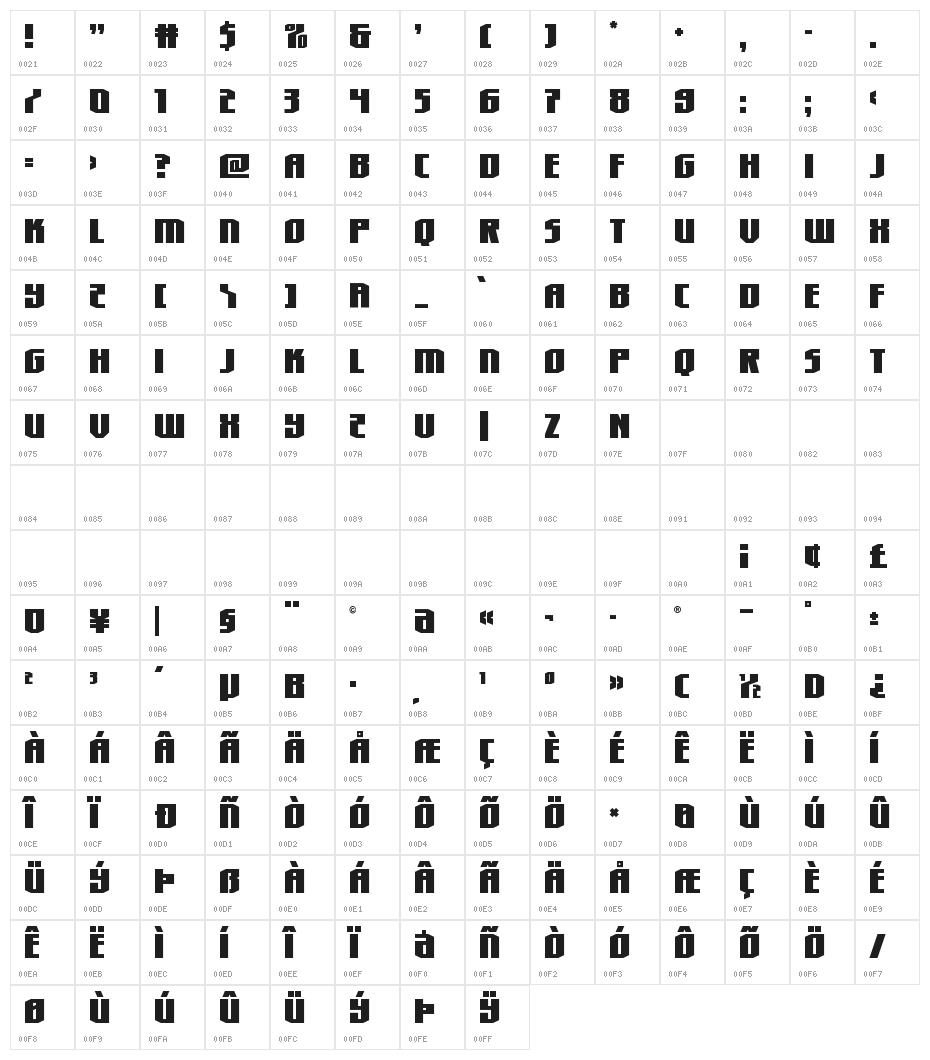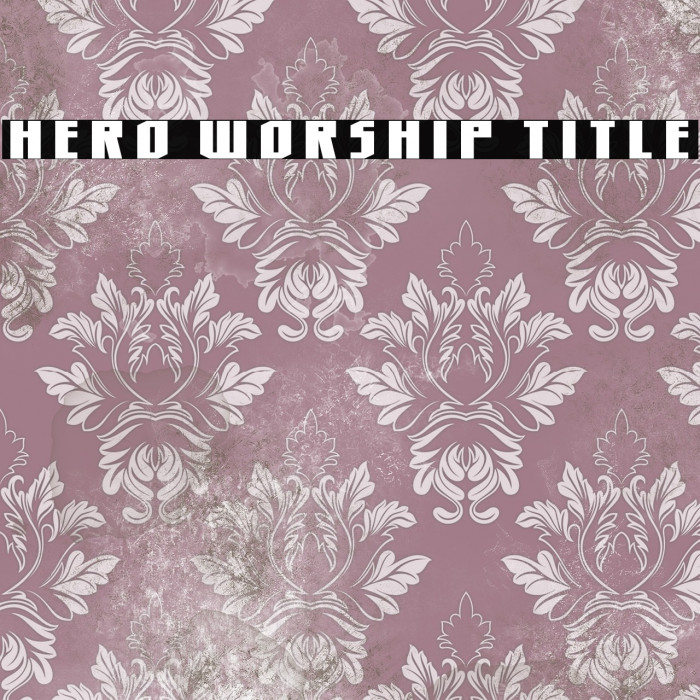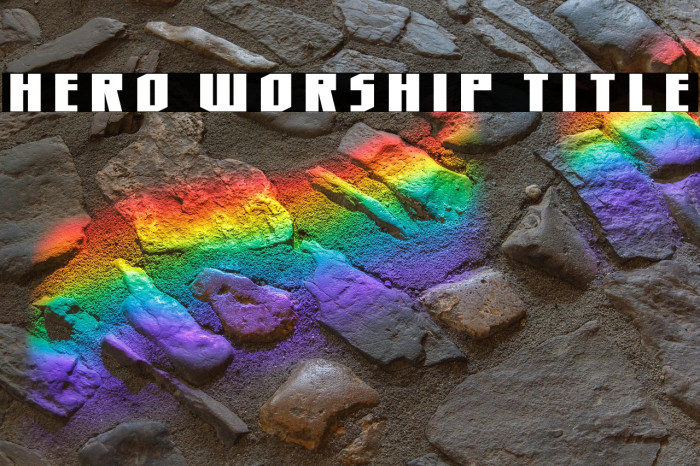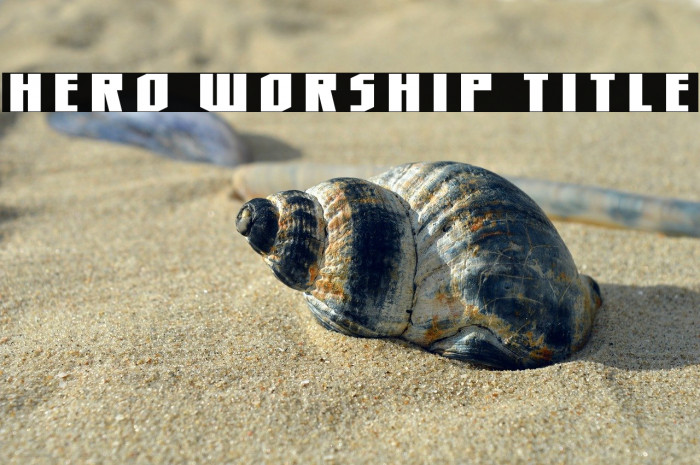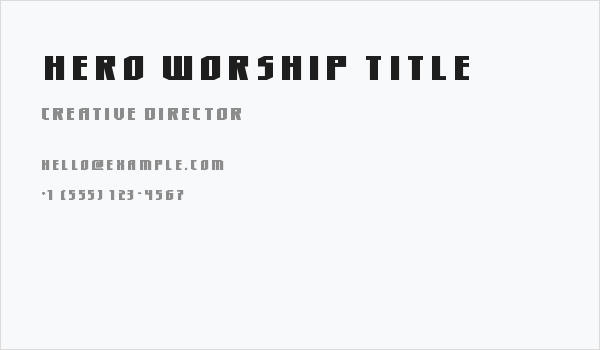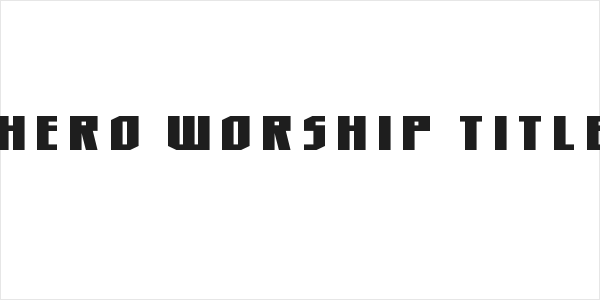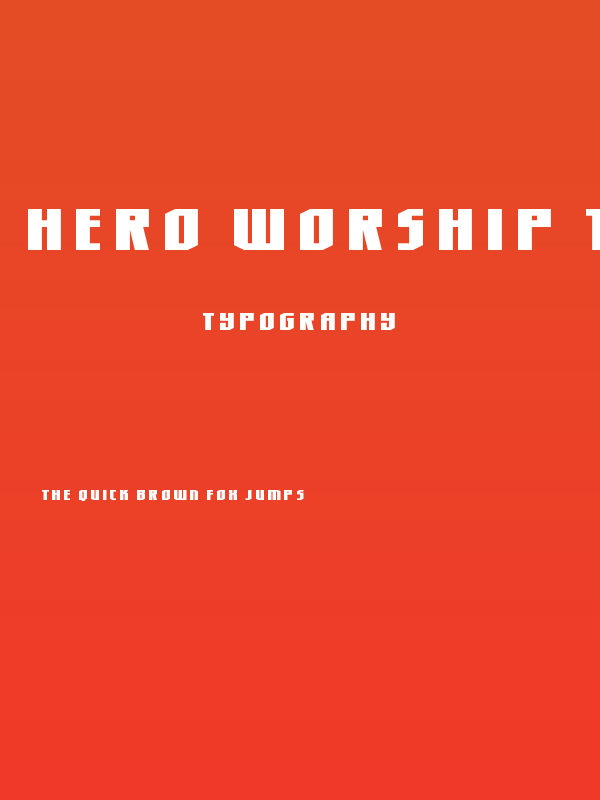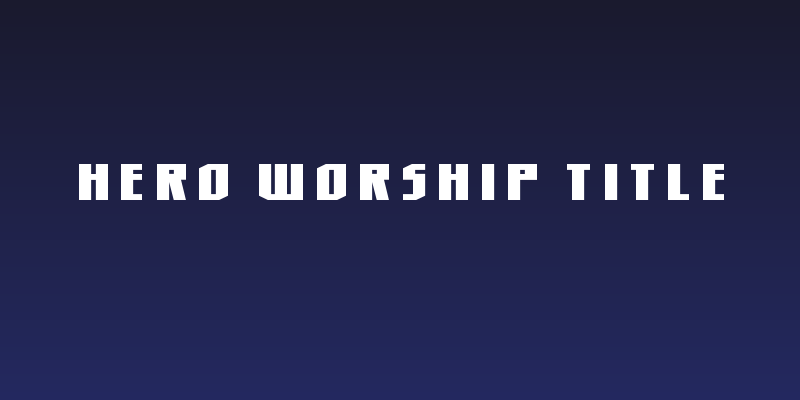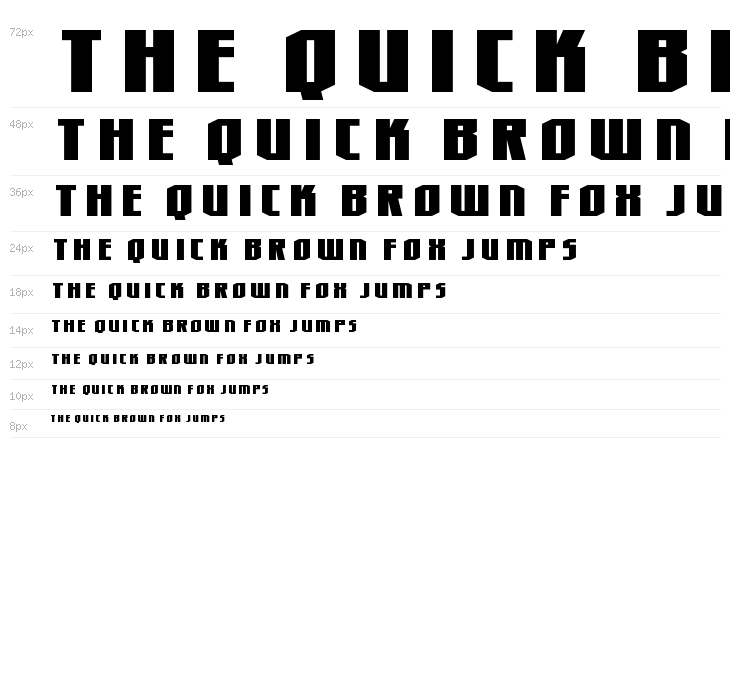
Hero Worship Title Font
Hero Worship Title Description
This font features a bold, geometric design with strong, angular lines and a blocky appearance. The characters are constructed with a uniform thickness, creating a sense of solidity and strength. The uppercase and lowercase letters maintain a consistent style, with sharp edges and a modern, industrial feel. The numerals and special characters follow the same design principles, ensuring a cohesive look across all glyphs. This font's distinct style makes it suitable for impactful and attention-grabbing designs.